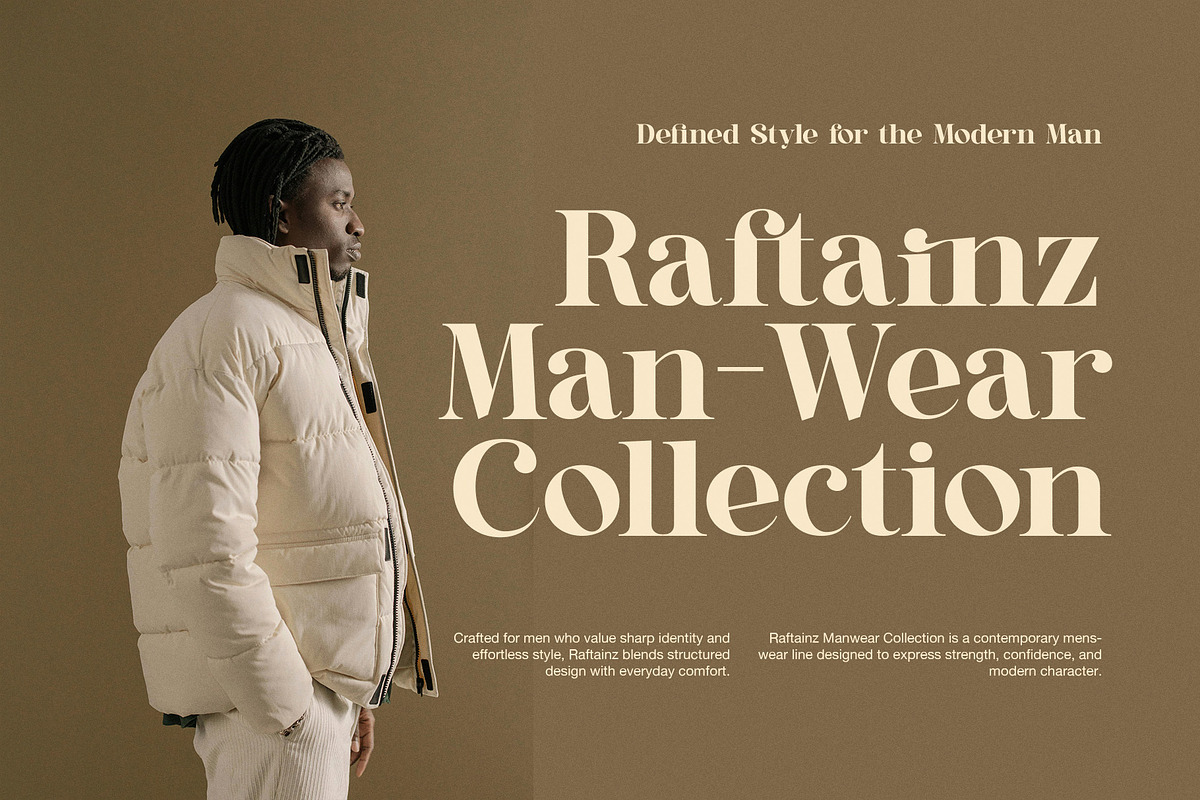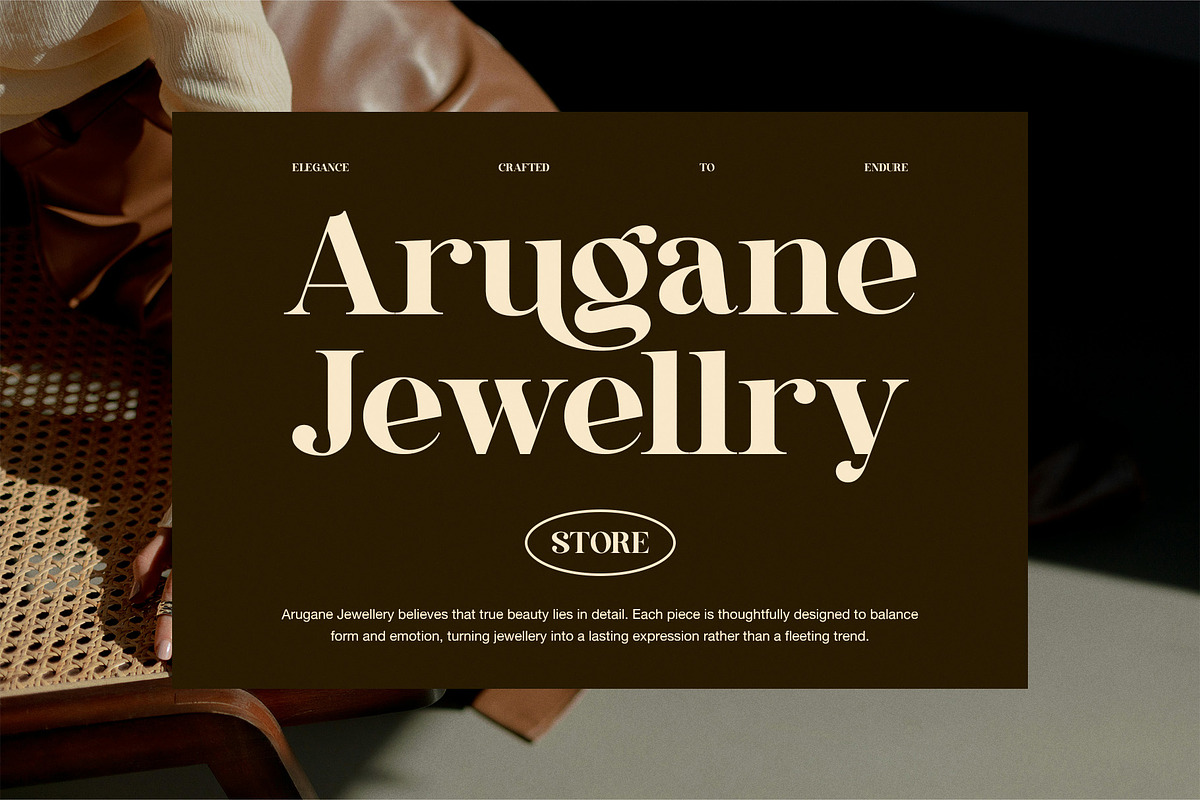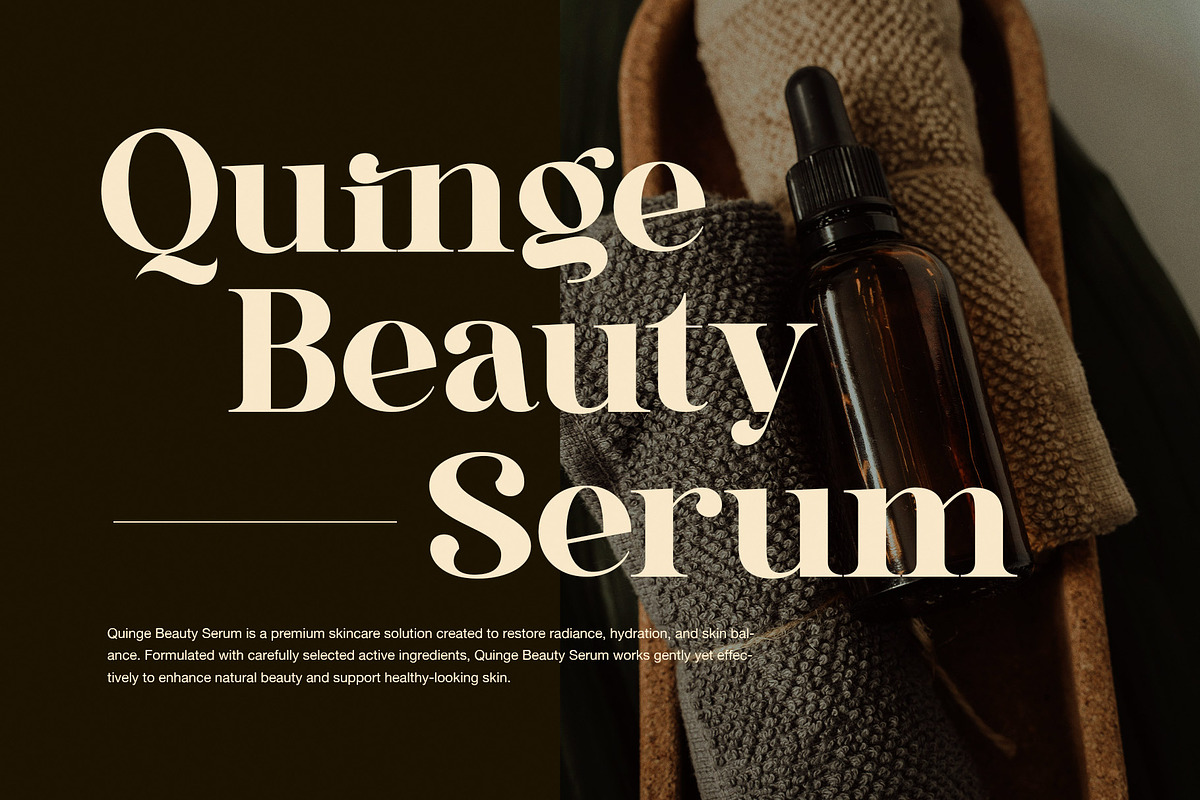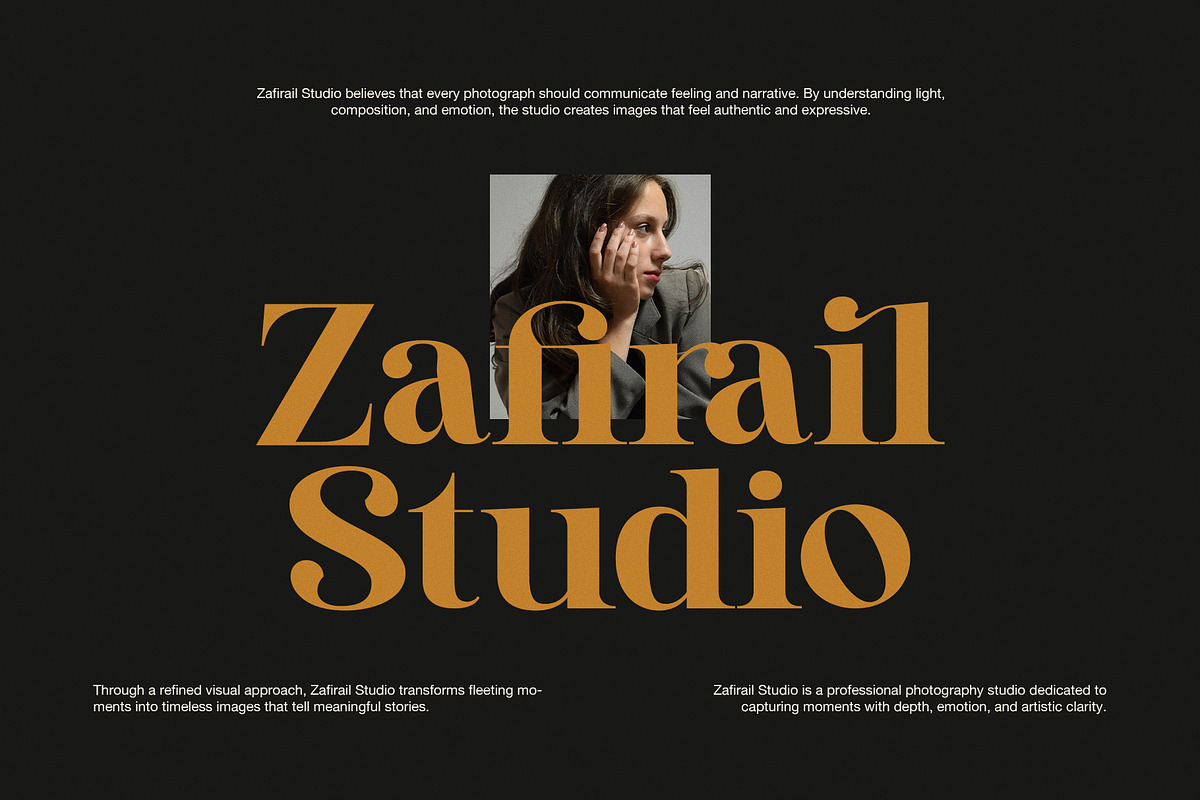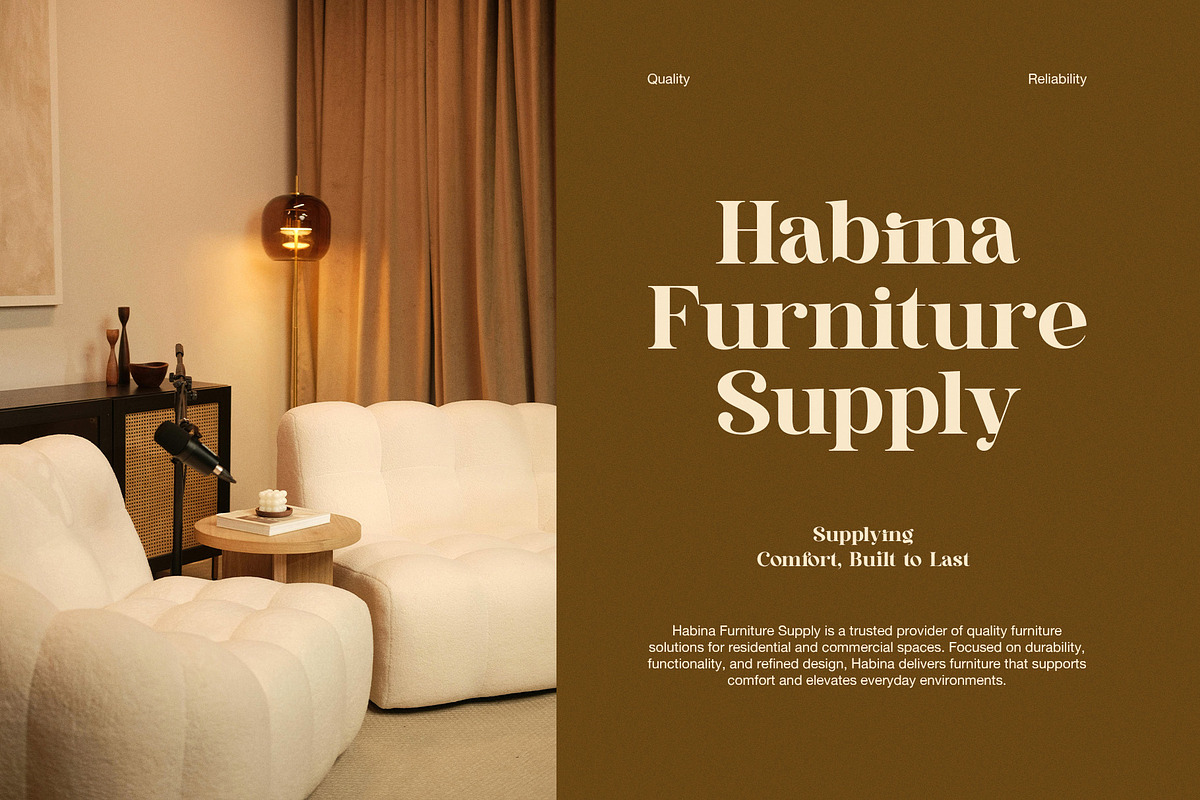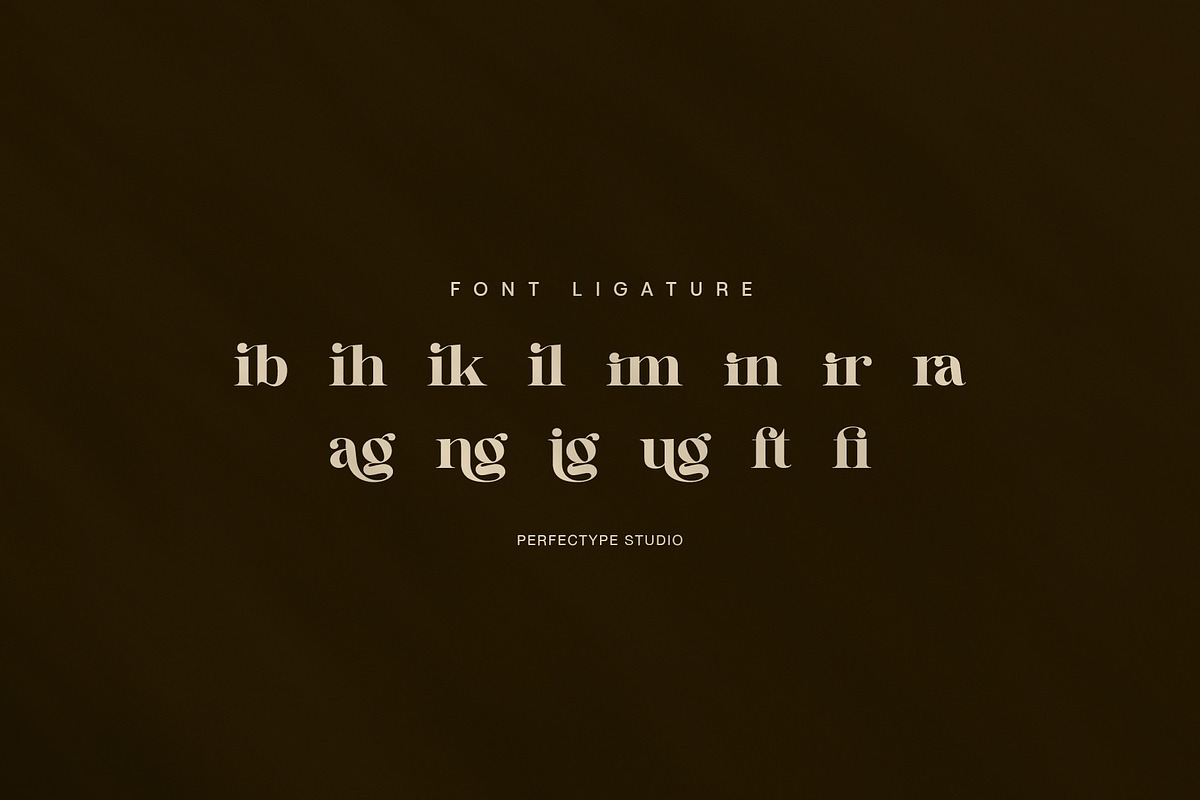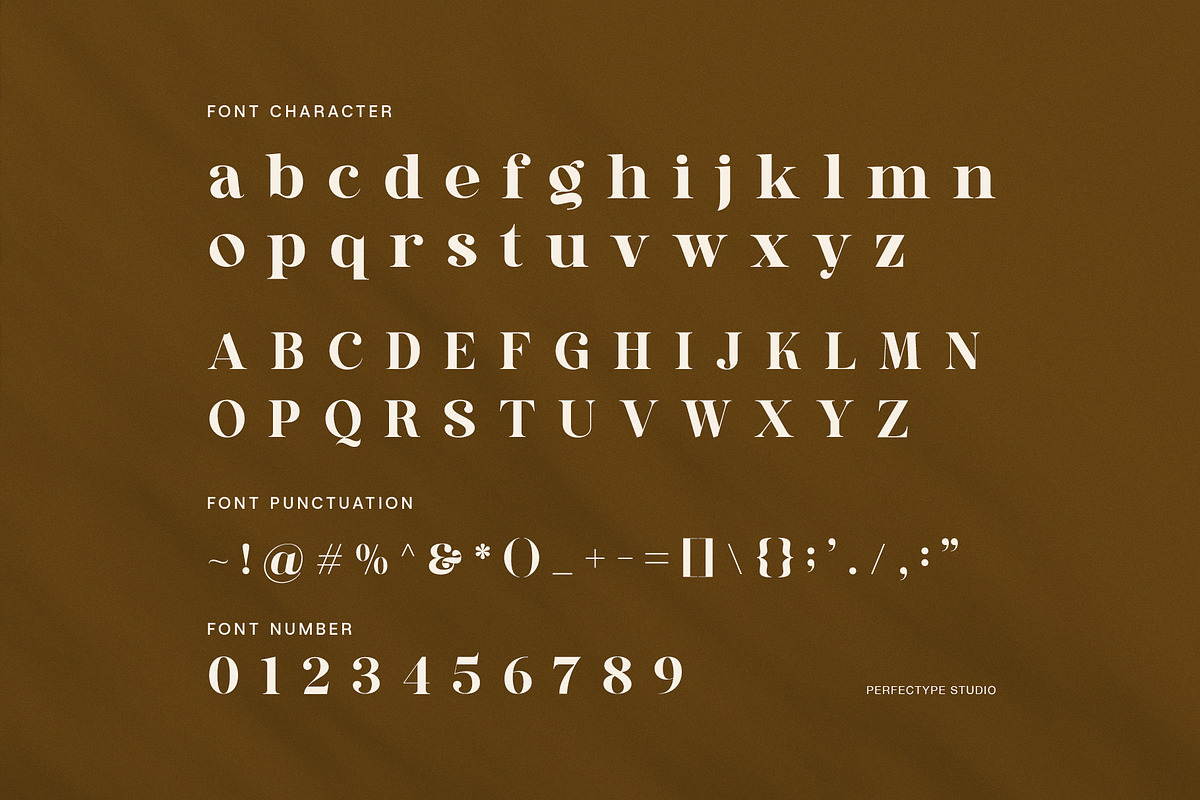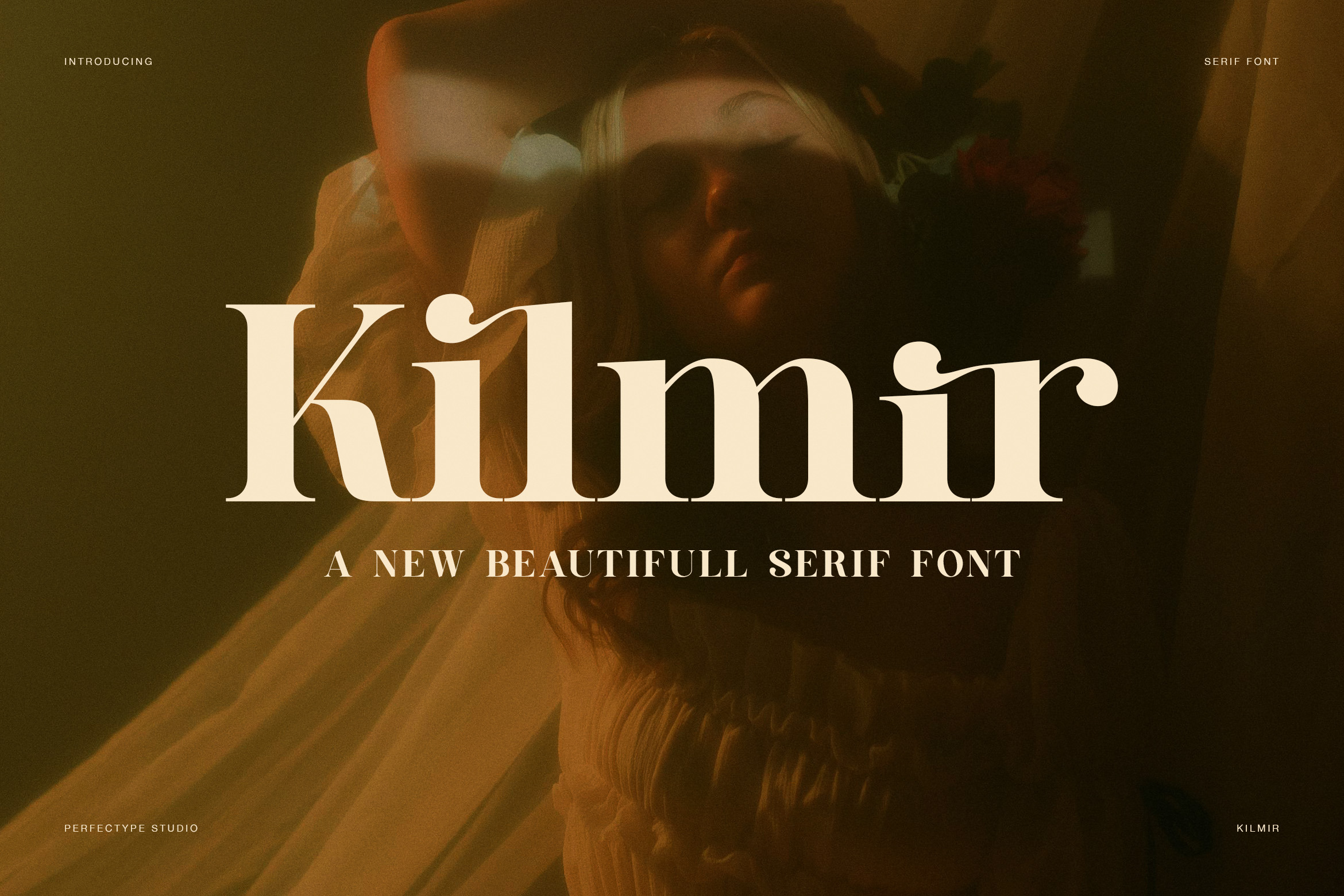
Kilmir Elegant Serif Font
Kilmir is an elegant luxury serif font created to express refinement, strength, and timeless beauty. It combines classic serif tradition with modern softness, so every headline feels graceful yet confident. Because of its balanced proportions and smooth curves, Kilmir delivers a premium look without sacrificing readability.
This font shines in fashion, furniture, beauty, jewellery, and lifestyle branding. Moreover, its warm personality makes products feel trustworthy and sophisticated at the same time. Whether you design logos, packaging, advertising, or editorial layouts, Kilmir creates a strong visual identity that feels intentional and polished.
Kilmir includes uppercase and lowercase letters, numbers, punctuation, stylish alternates, and refined ligatures. As a result, designers can craft unique typography that looks custom-made. The ligatures add elegance to letter combinations, while the alternate characters introduce subtle variation that keeps layouts fresh and expressive.
Why Kilmir stands out
Elegant serif style with a luxury impression
Smooth contrast for bold yet graceful headlines
Alternates and ligatures for distinctive typography
Clear readability for print and digital projects
Warm character suitable for premium branding
In addition, Kilmir adapts easily to many creative directions. It looks stunning on minimalist backgrounds, rich photography, or earthy color palettes. Because the shapes are refined but not delicate, the font remains strong across large titles and smaller text blocks.
Use Kilmir for fashion campaigns, furniture branding, cosmetic packaging, jewellery stores, hotel identities, editorial design, and modern lifestyle projects. It also performs beautifully in masculine branding, where elegance and strength must coexist. Therefore, it becomes a versatile tool for designers who want consistency across many applications.
Overall, Kilmir offers a harmonious blend of sophistication and usability. It feels timeless yet contemporary, luxurious yet approachable. If you want typography that communicates quality, confidence, and beauty, Kilmir provides a dependable and stylish solution.